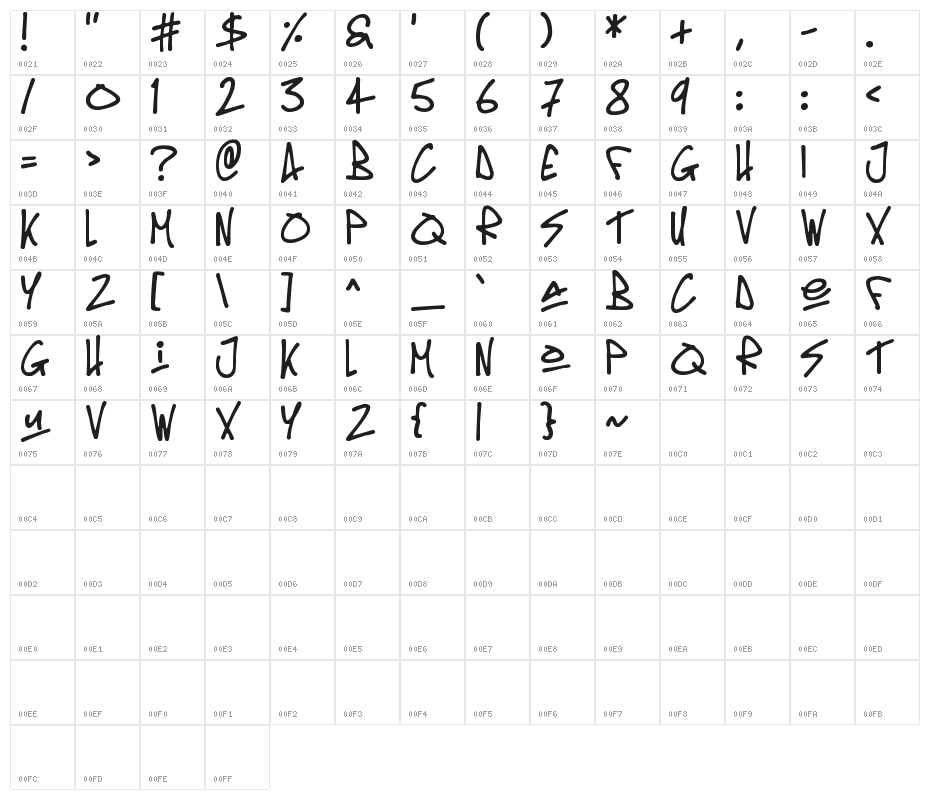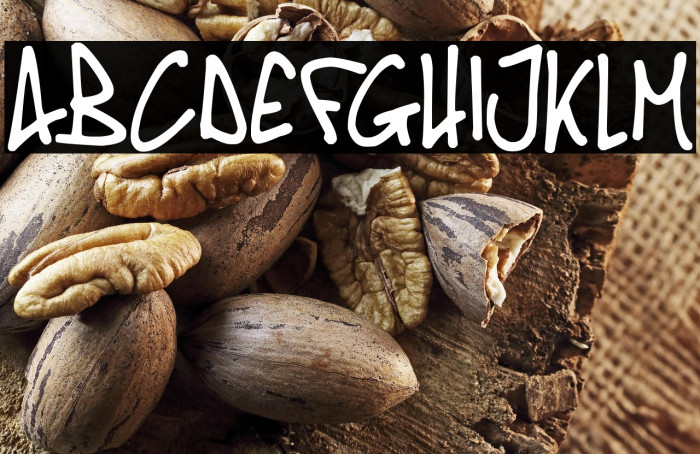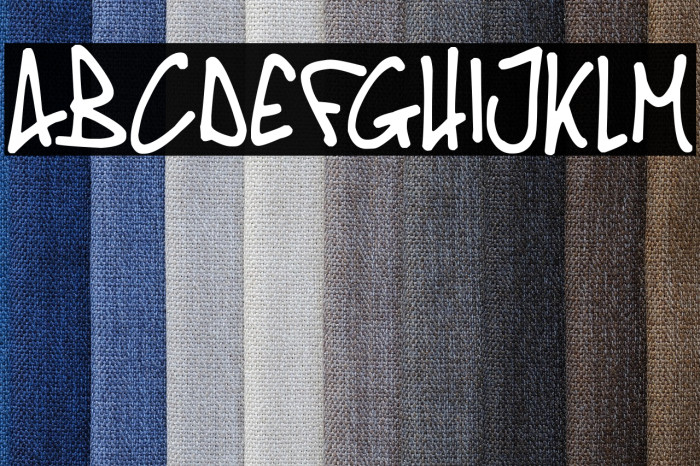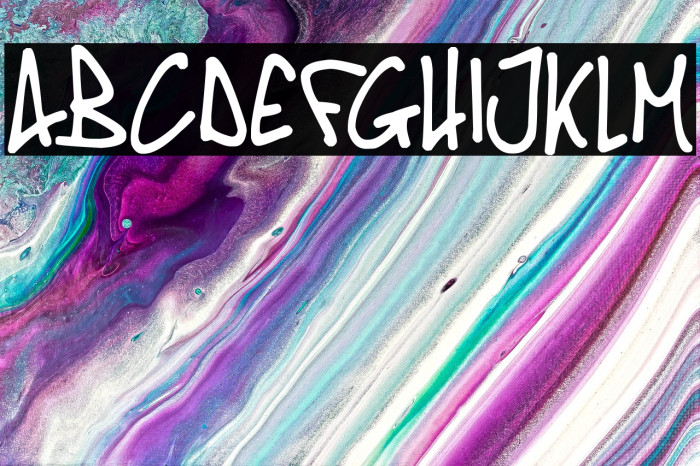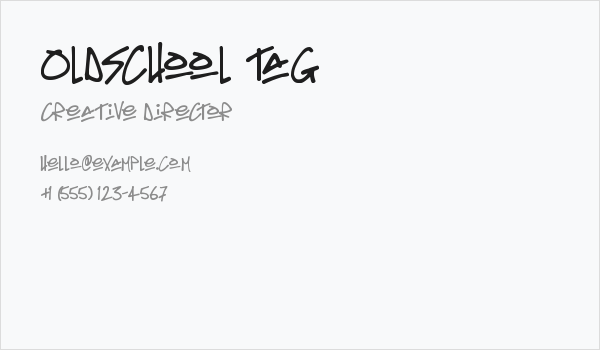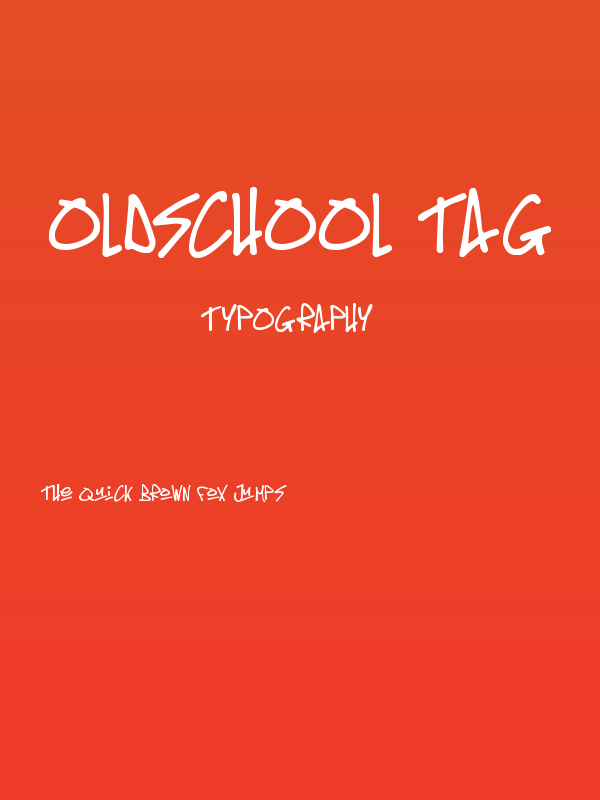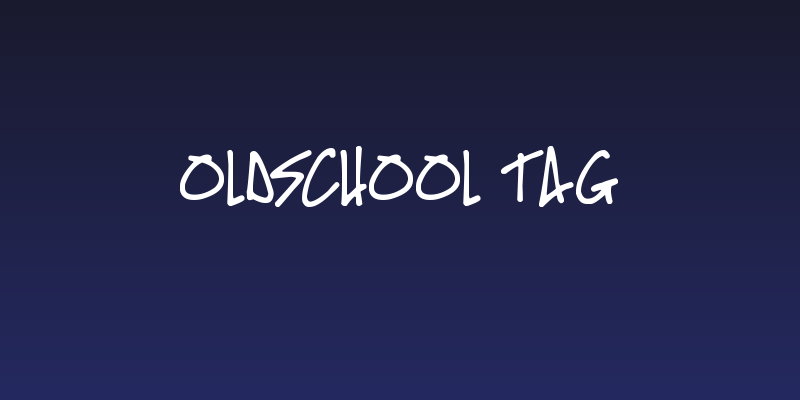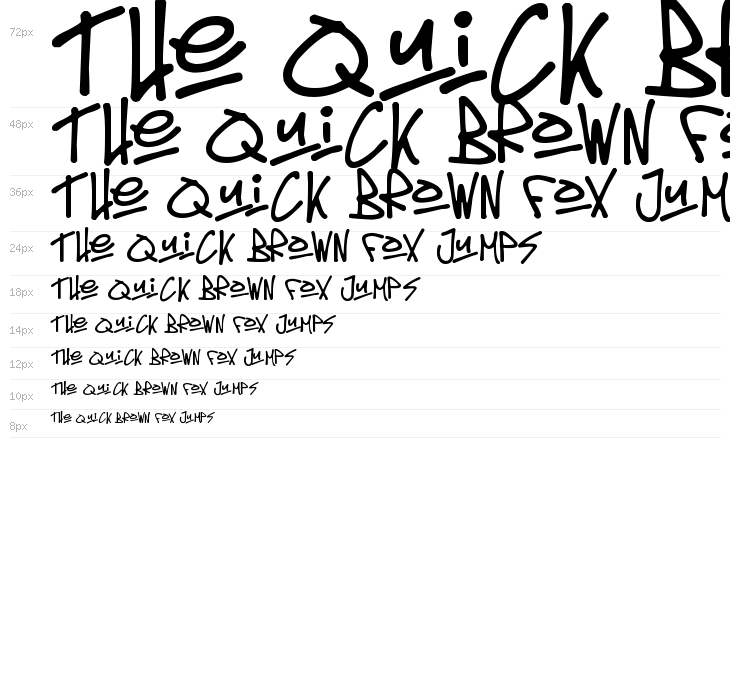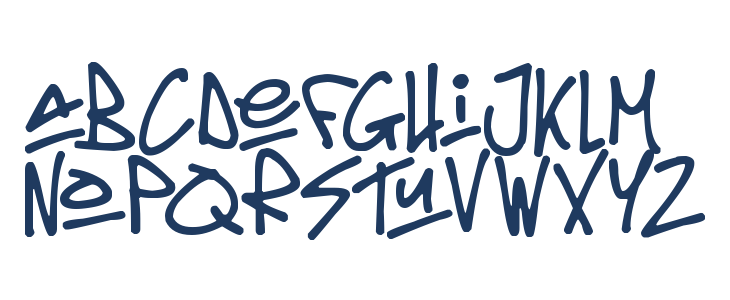
Oldschool Tag Font
Oldschool Tag Description
This font exudes a bold, graffiti-inspired style with a hand-drawn aesthetic. The characters are dynamic and energetic, featuring irregular strokes and playful curves that mimic the look of street art. The uppercase and lowercase letters maintain a consistent flow, while the numbers and special characters add to the overall urban vibe. The font's informal and expressive nature makes it ideal for projects that require a touch of creativity and rebellion. Its unique style captures attention and conveys a sense of individuality and artistic flair.
| Overall Style | Urban, Artistic, Graffiti |
| Use Case | Logos, Posters, Album Covers |
| Proposed Projects | Perfect for street art designs, urban-themed posters, music album covers, and creative branding projects. |